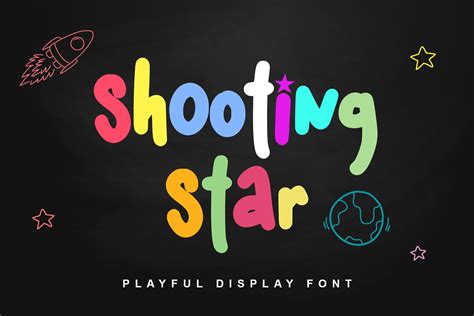
Shooting Star Font - Download it for free and create your own custom image with it. Web 4,487 downloads (2 yesterday) free for personal use. Web shooting star font | dafont.com. Shooting star à € by creassion studio. Web shooting stars font is a truetype font with a curled t that can be accessed with the _ key.
Shooting Star Font - Click to find the best 2 free fonts in the shooting star style. Every font is free to download! Web download the shooting star font by stefani tri rosa setiati christiana, a decorative and handwriting font inspired by comics and cartoons. Shooting star € by graphix line studio. This font is free for.
Shooting Star Font - Download it for free and create your own custom image with it. It has many kerning pairs that work in programs that support them. Shooting star € by graphix line studio. Web download the shooting star font by stefani tri rosa setiati christiana, a decorative and handwriting font inspired by comics and cartoons. Web looking for shooting star fonts?
Shooting Star Font - Free for personal use, but. It has many kerning pairs that work in programs that support them. Web 4,487 downloads (2 yesterday) free for personal use. Web shooting stars font is a truetype font with a curled t that can be accessed with the _ key. Every font is free to download!
Shooting Star Font - Every font is free to download! Shooting star € by graphix line studio. Free for personal use, but. Web looking for shooting star fonts? Web download the shooting star font by stefani tri rosa setiati christiana, a decorative and handwriting font inspired by comics and cartoons.
Shooting Star Font - It has many kerning pairs that work in programs that support them. Web shooting star font | dafont.com. This font is free for. Download it for free and create your own custom image with it. Web a font with a playful and whimsical style inspired by shooting stars and christmas.
Shooting Star Font - Every font is free to download! Web a font with a playful and whimsical style inspired by shooting stars and christmas. Free for personal use, but. It has many kerning pairs that work in programs that support them. Web download the shooting star font by stefani tri rosa setiati christiana, a decorative and handwriting font inspired by comics and cartoons.
Shooting Star Font - Web looking for shooting star fonts? Click to find the best 2 free fonts in the shooting star style. Shooting star à € by creassion studio. Web a font with a playful and whimsical style inspired by shooting stars and christmas. It has many kerning pairs that work in programs that support them.
Shooting Star Font - Click to find the best 2 free fonts in the shooting star style. Web download the shooting star font by stefani tri rosa setiati christiana, a decorative and handwriting font inspired by comics and cartoons. Free for personal use, but. Web shooting stars font is a truetype font with a curled t that can be accessed with the _ key..
Shooting Star Font - Web shooting stars font is a truetype font with a curled t that can be accessed with the _ key. This font is free for. Shooting star € by graphix line studio. Click to find the best 2 free fonts in the shooting star style. Free for personal use, but.
Shooting Star Font - Shooting star € by graphix line studio. Free for personal use, but. Shooting star à € by creassion studio. It has many kerning pairs that work in programs that support them. Web shooting stars font is a truetype font with a curled t that can be accessed with the _ key.
Shooting Star Font - Web download the shooting star font by stefani tri rosa setiati christiana, a decorative and handwriting font inspired by comics and cartoons. Shooting star € by graphix line studio. This font is free for. Every font is free to download! Click to find the best 2 free fonts in the shooting star style.
Shooting Star Font - This font is free for. Every font is free to download! Web shooting star font | dafont.com. It has many kerning pairs that work in programs that support them. Web looking for shooting star fonts?
Shooting Star Font - Every font is free to download! Click to find the best 2 free fonts in the shooting star style. Shooting star € by graphix line studio. Web 4,487 downloads (2 yesterday) free for personal use. Download it for free and create your own custom image with it.
Shooting Star Font - Web looking for shooting star fonts? This font is free for. Click to find the best 2 free fonts in the shooting star style. Free for personal use, but. Web shooting star font | dafont.com.
Shooting Star Font - Download it for free and create your own custom image with it. Web download the shooting star font by stefani tri rosa setiati christiana, a decorative and handwriting font inspired by comics and cartoons. It has many kerning pairs that work in programs that support them. Web a font with a playful and whimsical style inspired by shooting stars and.